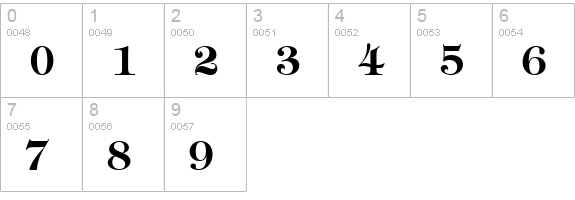
Sophisticate SSi Semi Bold is a strong, high-contrast variant in the Sophisticate typeface family \xE2\x80\x94 well suited to headlines, attention-grabbing titles, and strong calls-to-action.
Introducing Sophisticate SSi Semi Bold, the epitome of elegance and refinement in the world of typography. This exquisite font is a harmonious blend of sophistication and boldness, making it the perfect choice for those seeking a touch of class in their designs. With its sleek and modern letterforms, Sophisticate SSi Semi Bold exudes a sense of confidence and style. Its thick strokes and clean lines create a strong visual impact, while still maintaining a sense of grace and elegance. Whether used for headlines, logos, or branding materials, this font is sure to make a lasting impression. But what sets Sophisticate SSi Semi Bold apart is its versatility. It effortlessly transitions from formal to informal contexts, making it suitable for a wide range of design projects. From luxurious invitations to high-end fashion magazines, this font adds a touch of sophistication to any layout. And the best part? Sophisticate SSi Semi Bold is freely available to download at FontsMarket.com. Yes, you read that right – this exceptional font can be yours without any cost. So go ahead and elevate your designs with this stunning typeface, and let your creativity shine. Download Sophisticate SSi Semi Bold today and experience the beauty of timeless elegance in every character. With its captivating aesthetics and the freedom to use it at no charge, this font is a must-have for any designer or typographer looking to make a statement. Don't miss out on this opportunity to enhance your projects with a touch of sophistication – download Sophisticate SSi Semi Bold now, exclusively at FontsMarket.com.